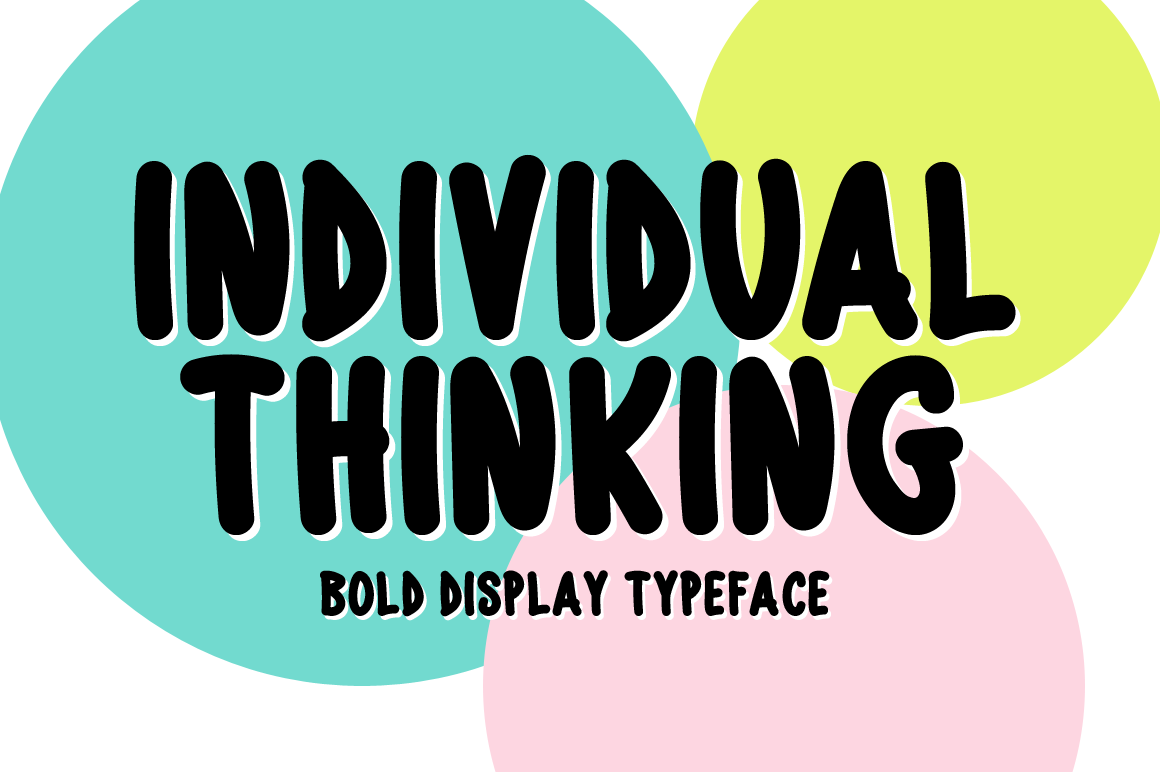
Individual Thinking Typeface
Introducing Individual Thinking!
Individual Thinking is a bold and chunky lettered display font. You can use it for various projects, such as blog posts, logos, branding, ads, invitations, greeting cards, planners, photo albums, decorations, and much more.
Includes a range of multilingual support